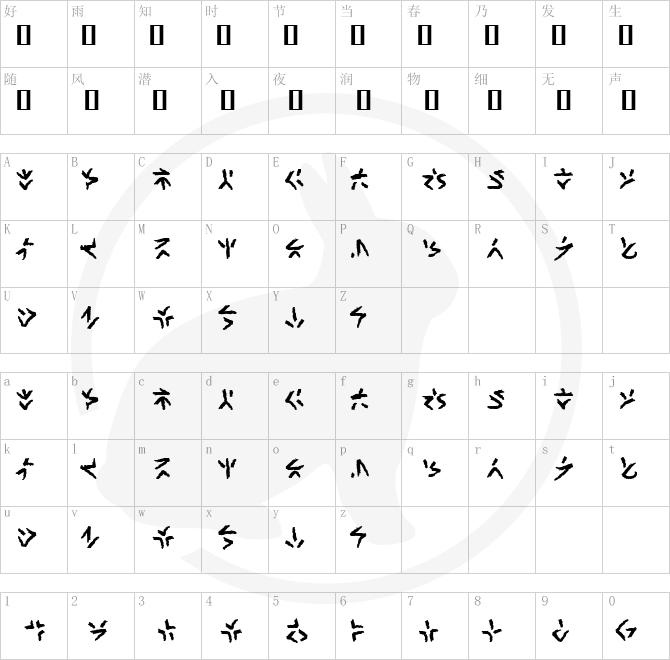
- Font Name:XenoTribal BB
XenoTribal-BB.ttf is a very beautiful artistic font, XenoTribal-BB.ttf is widely used in the design and printing of various books and pictures,XenoTribal-BB.ttf has a strong visual impact,XenoTribal-BB.ttf is a commonly used font in newspapers, magazines and books, and is used in posters, e-commerce Poster design, store design, logo design, font design and other fields.XenoTribal-BB.